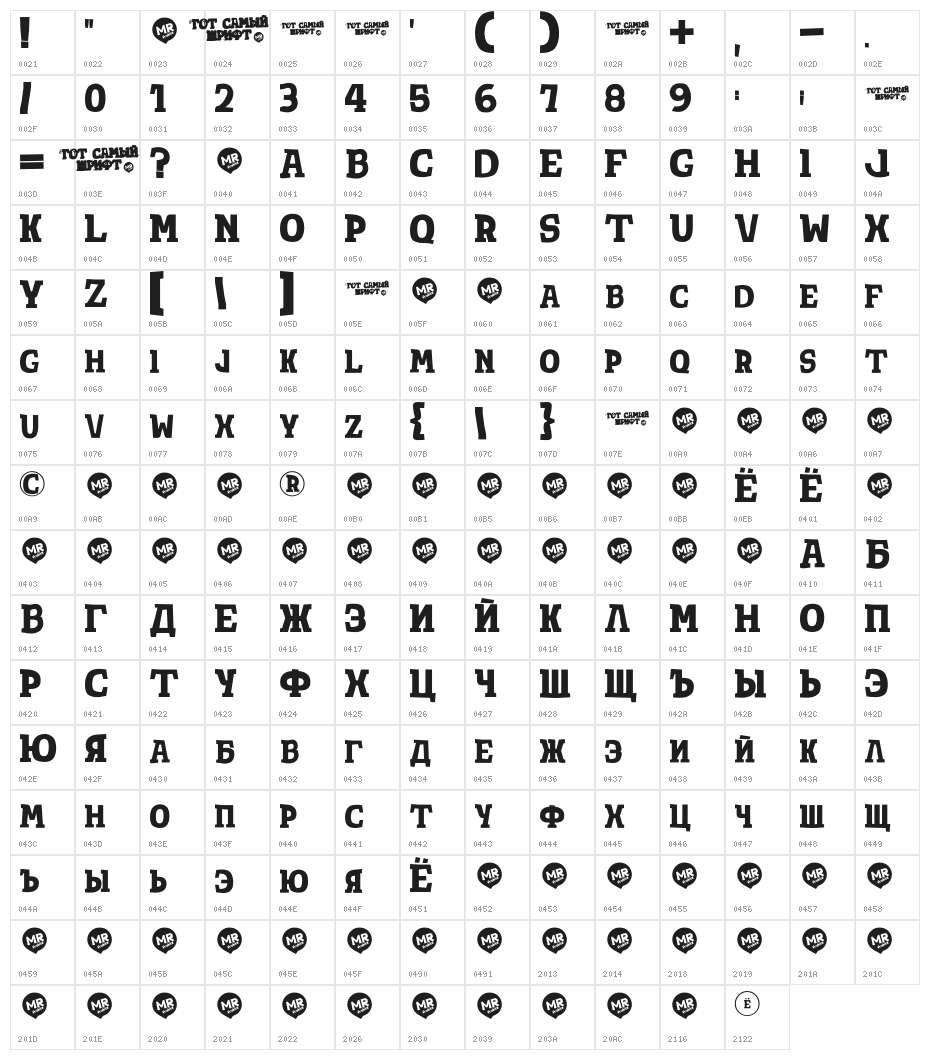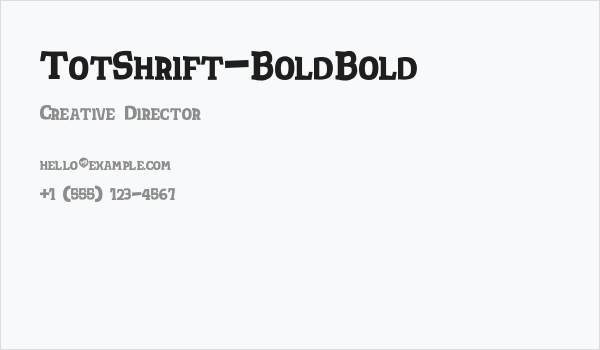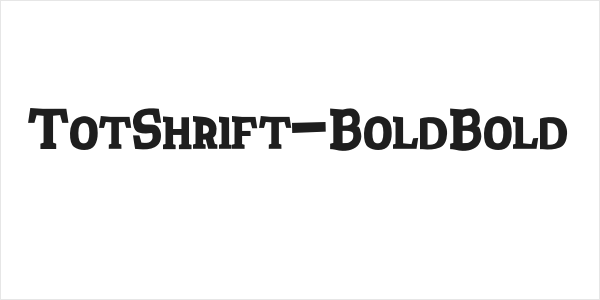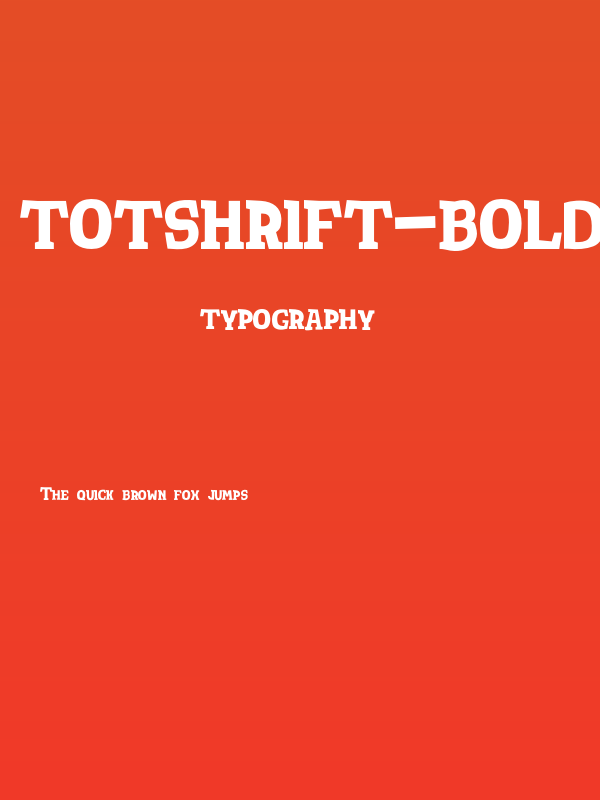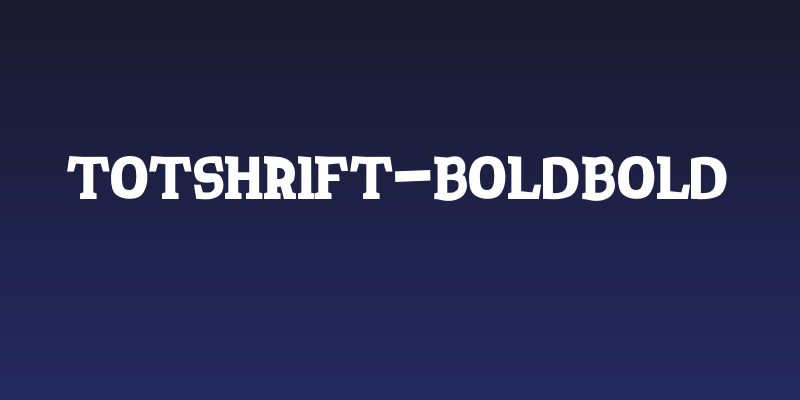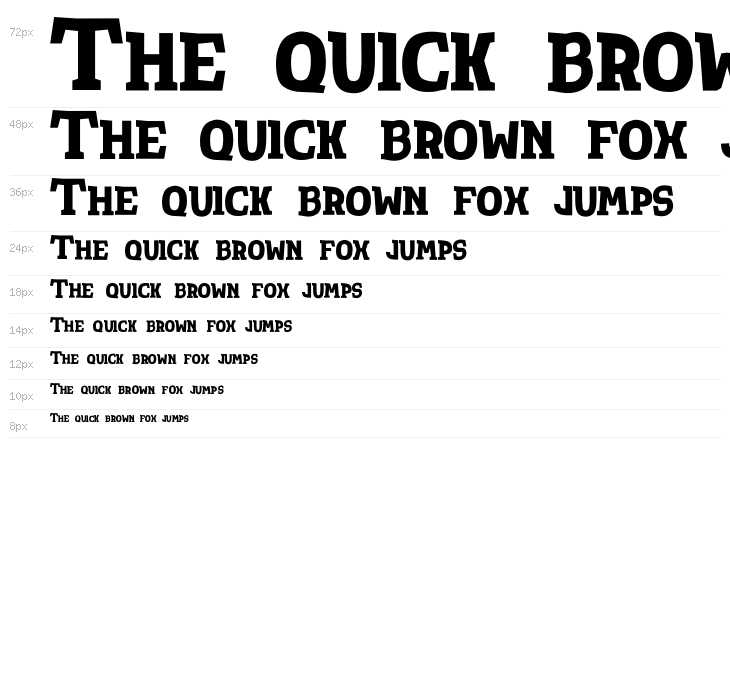
TotShrift-BoldBold Font
TotShrift-BoldBold Description
This font features bold, thick strokes with a playful and slightly retro aesthetic. The characters have a strong presence, making them ideal for attention-grabbing headlines. The uppercase letters are particularly prominent, with a slight curve that adds a touch of whimsy. The numbers are equally bold, maintaining the font's overall robust appearance. Special characters are included, each designed with the same boldness and style, ensuring consistency across all text elements. This font is perfect for projects that require a strong visual impact.
| Overall Style | Retro, Playful |
| Proposed Projects | Perfect for posters, logos, branding, and any project needing a bold statement. |